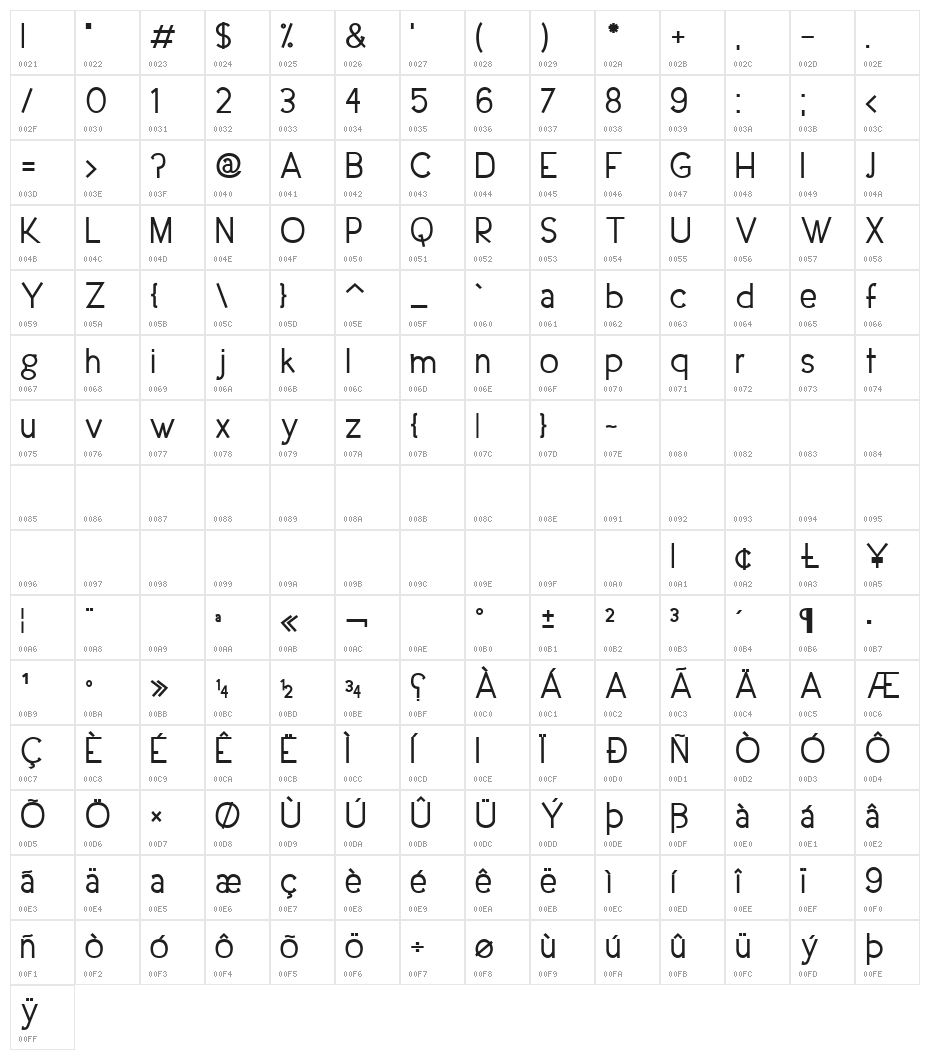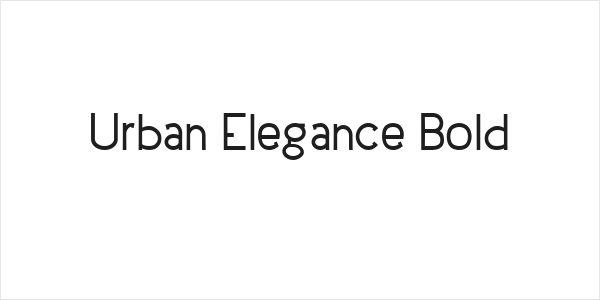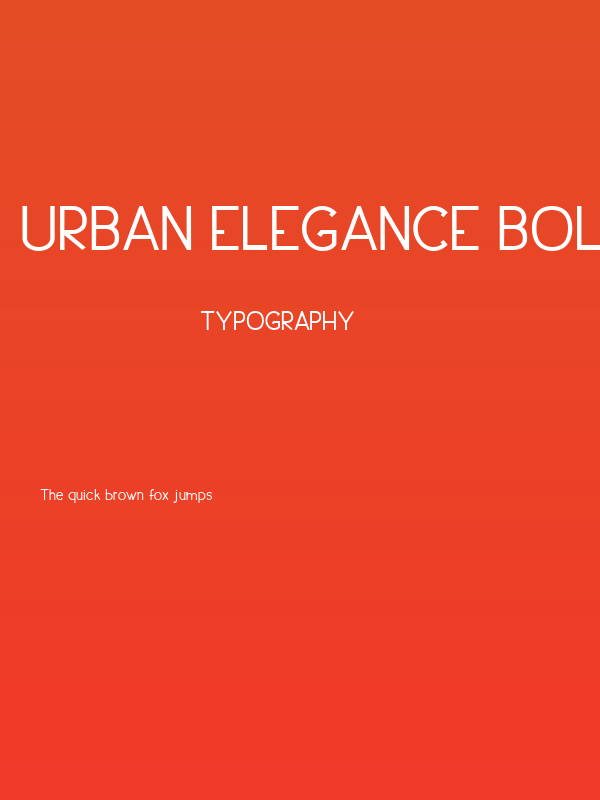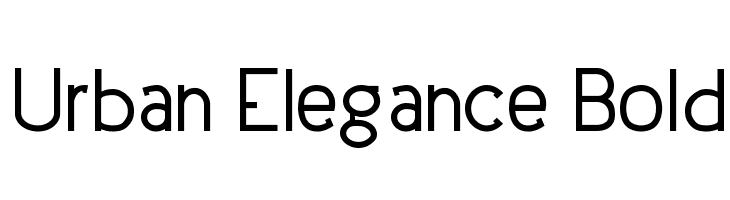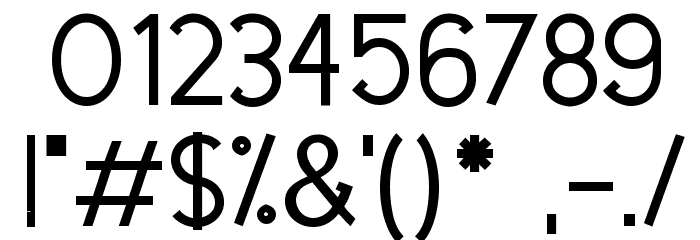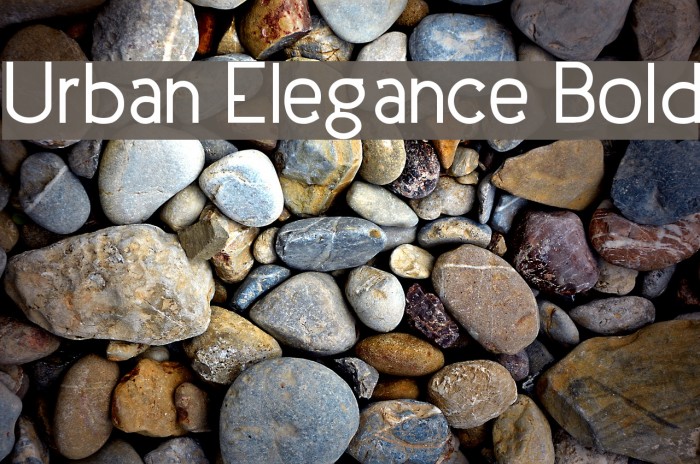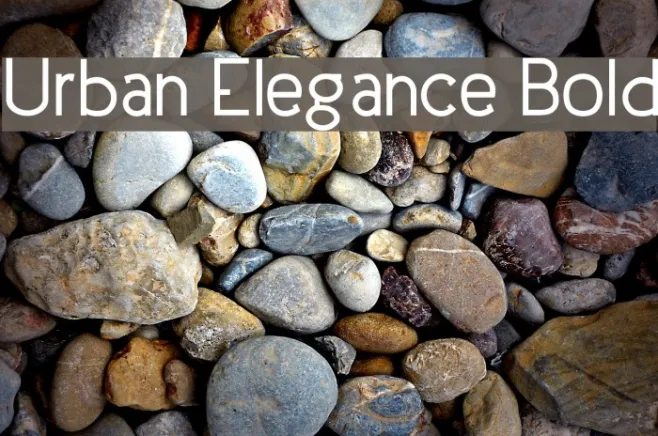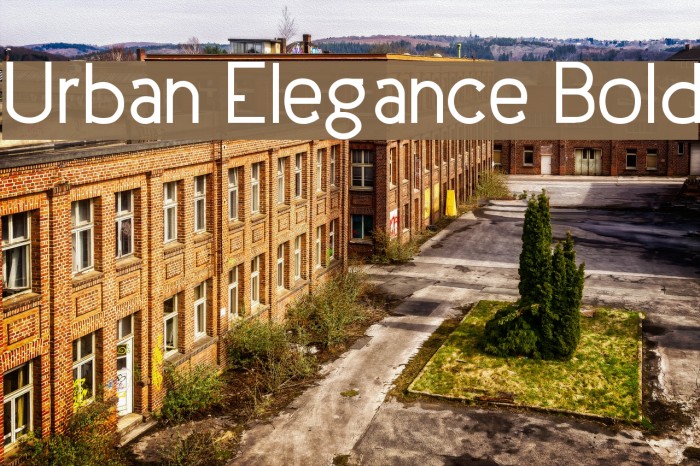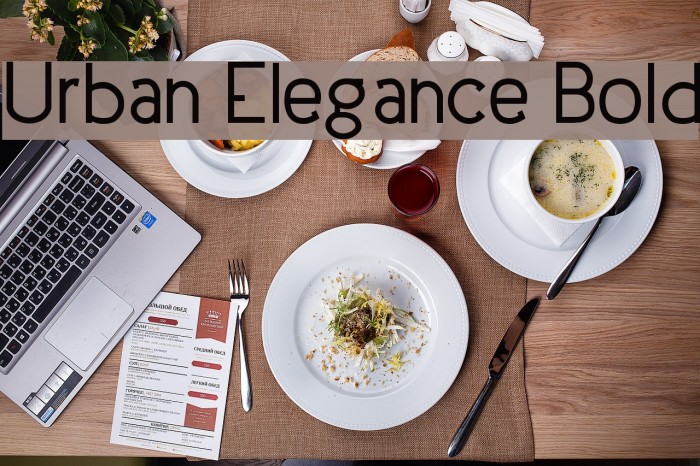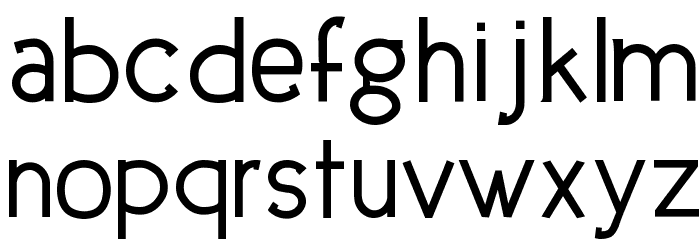
Urban Elegance Bold Font
Urban Elegance Bold Description
This font exudes a modern and sleek aesthetic, characterized by clean lines and a geometric structure. The uppercase letters are bold and assertive, while the lowercase letters maintain a consistent style with slightly rounded edges, adding a touch of softness. The numerals are straightforward and align well with the overall design, ensuring readability. Special characters are crafted with precision, maintaining the font's cohesive look. The uniformity in stroke width across all characters gives it a balanced and harmonious appearance, making it suitable for various design applications.
| Use Case | Headlines, Logos, Branding |
| Proposed Projects | Ideal for branding, advertising, and editorial design projects that require a contemporary and professional look. |